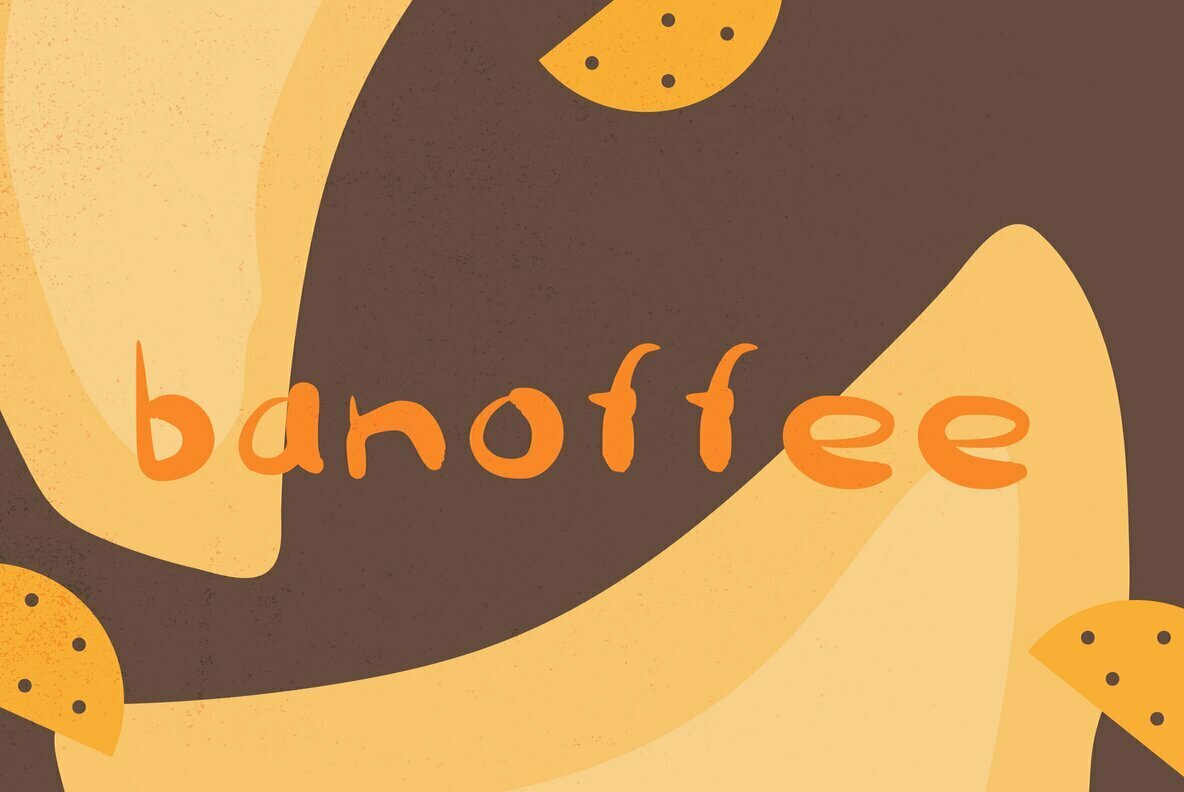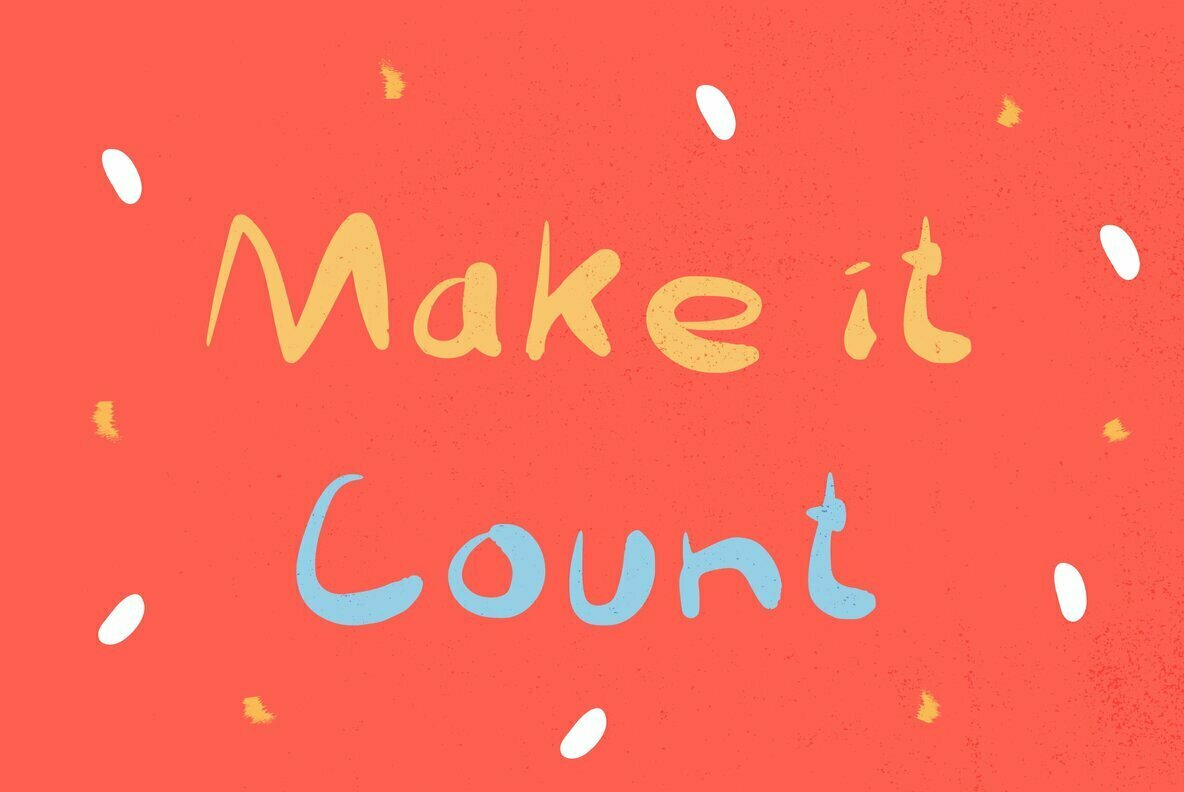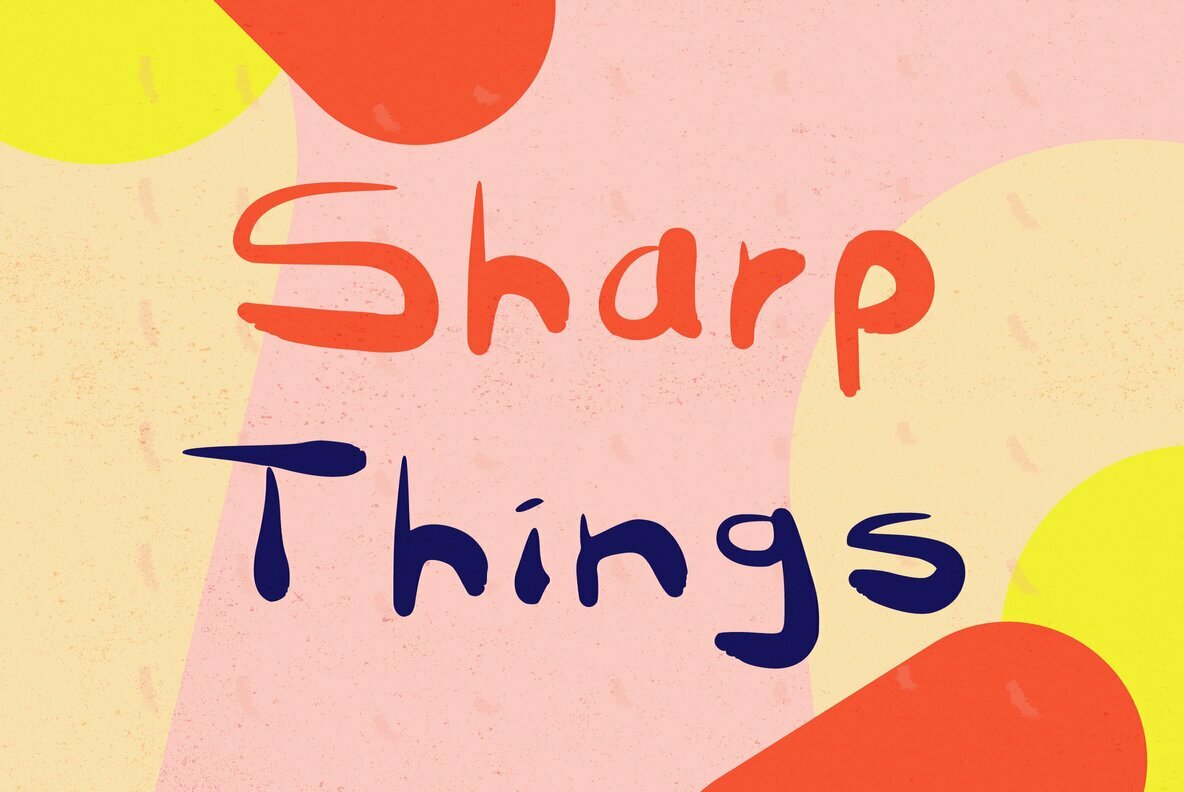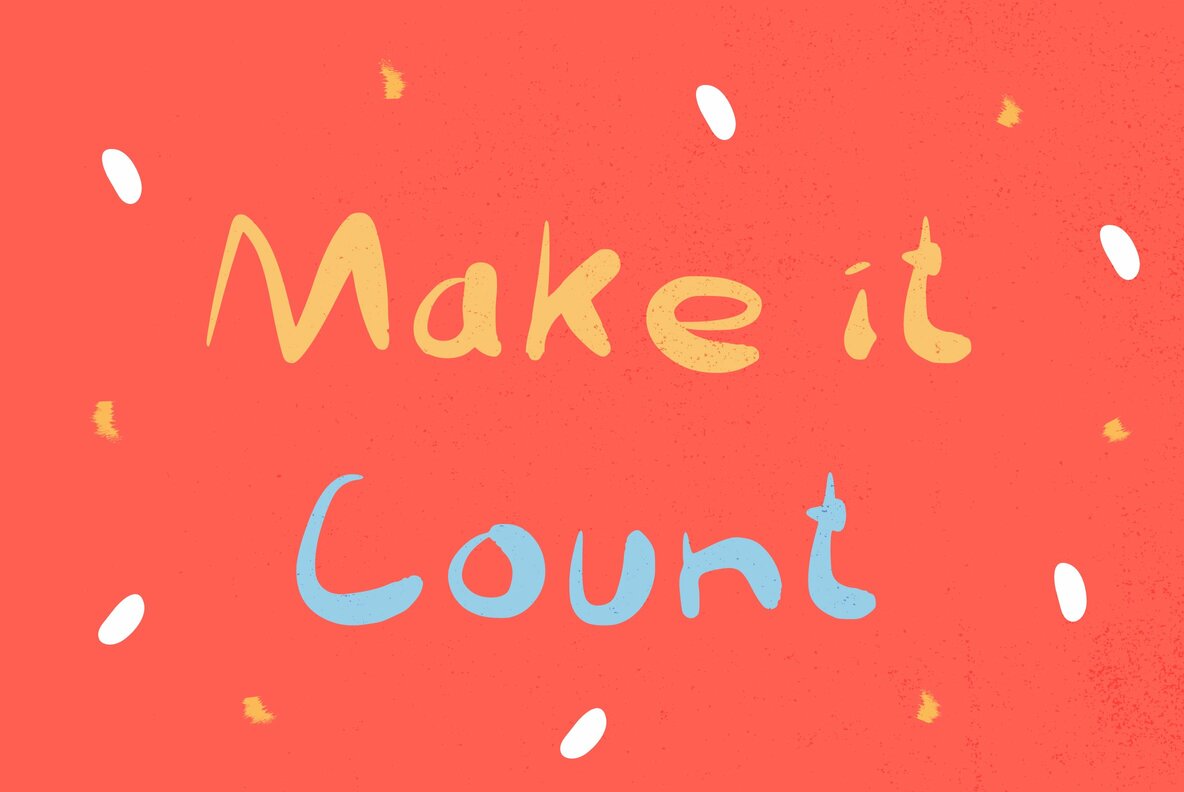
Sharp Things Font
A mixture of sharp features with some rounded elements give this a dark Halloween stylised font a real personality With a causal hand drawn look. Look but don't touch!